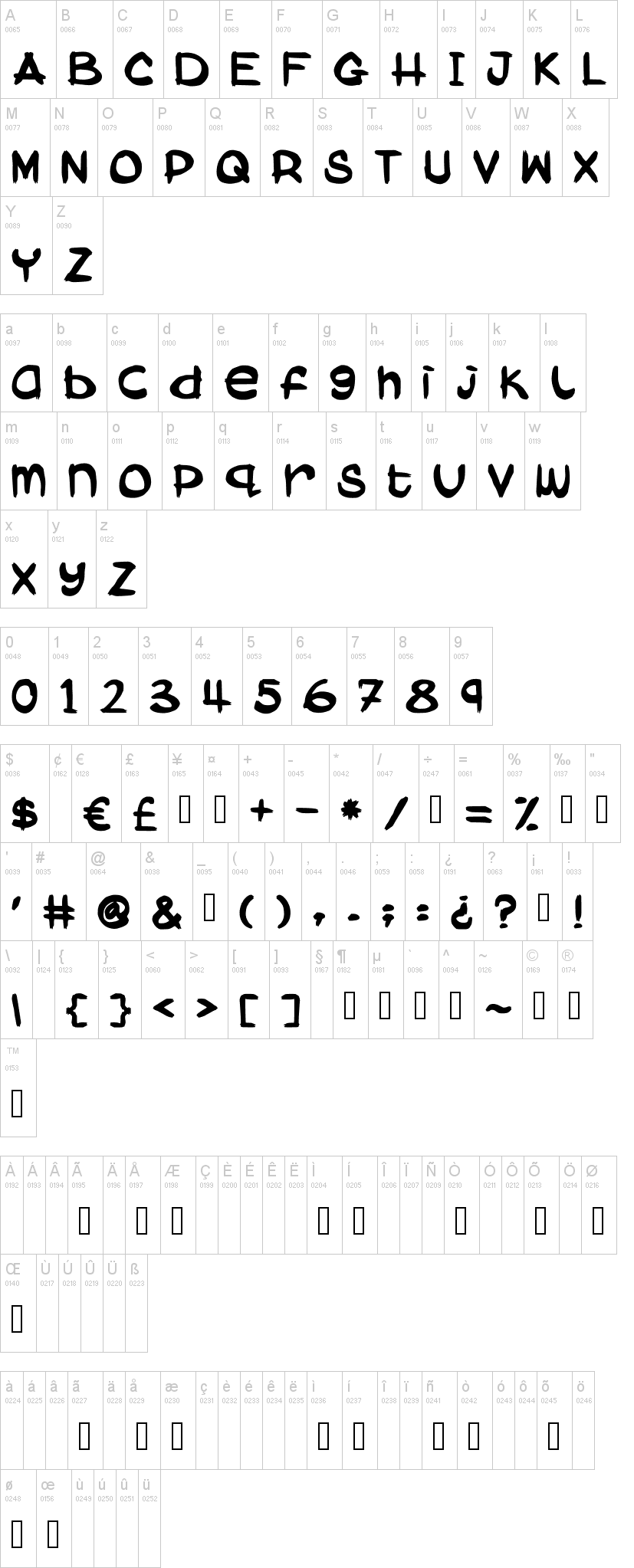
aboki dreadlock jam suya
Aboki Dreadlock Jam Suya is a stylish font featuring OTF, TTF, and WOFF formats. Ideal for creative projects, branding, and modern designs.
Experience the Unique Charm of Aboki Dreadlock Jam Suya
Created by a talented designer in 2023, Aboki Dreadlock Jam Suya is a unique and stylish font perfect for capturing attention. Its distinctive dreadlock-inspired aesthetic makes it an excellent choice for a variety of creative applications, including web design, logo creation, and print projects. Whether you’re designing for a community event, fashion advertising, or artistic branding, this font’s captivating style adds a cultural flair that engages audiences.
Key Features and Formats of Aboki Dreadlock Jam Suya
The Creative Journey of Aboki Dreadlock Jam Suya
The name ‘Aboki Dreadlock Jam Suya’ reflects cultural influences, evoking a sense of style rooted in modern urban aesthetics. The designer sought to celebrate diversity through typography that embodies both heritage and contemporary design trends. As a result, Aboki Dreadlock Jam Suya stands out in a crowded font marketplace, appealing to those looking for uniqueness and character.
Versatile Applications of Aboki Dreadlock Jam Suya
This font is perfect for a wide range of applications, from vibrant marketing campaigns to dynamic social media graphics. Its eye-catching style suits projects in fashion, music, arts, and community engagement, making it an ideal choice for brands wanting to express individuality and cultural pride.